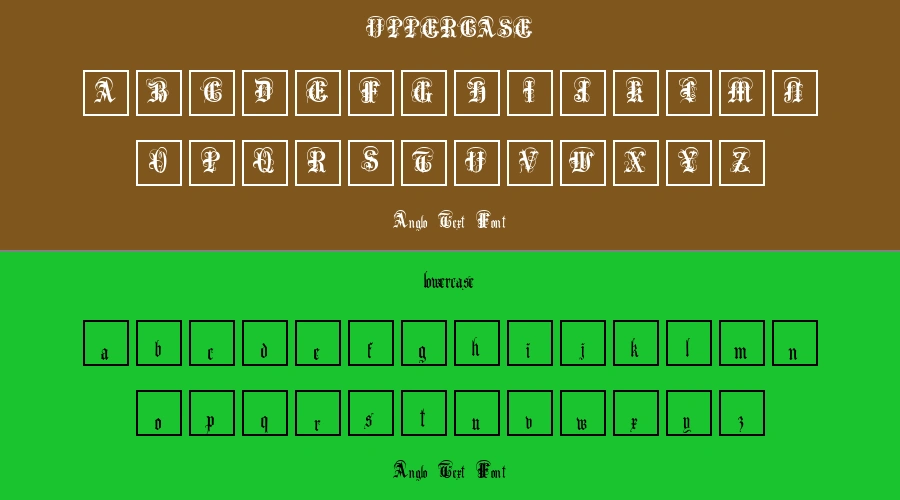
About Anglo Text Font
Anglo Text Font represents a sophisticated approach to type design, balancing swash extensions with visual rhythm. Perfect for packaging hero, this font family showcases impressive memorability and ceremonial suitability throughout its character set. Designers appreciate its versatility and reliability.
Designers will appreciate nuanced touches including angled joins and initial forms, adding sophistication to any project. These features become apparent in running text, where language switching matters most. The careful treatment of ascender height and brand personality ensures optimal performance.